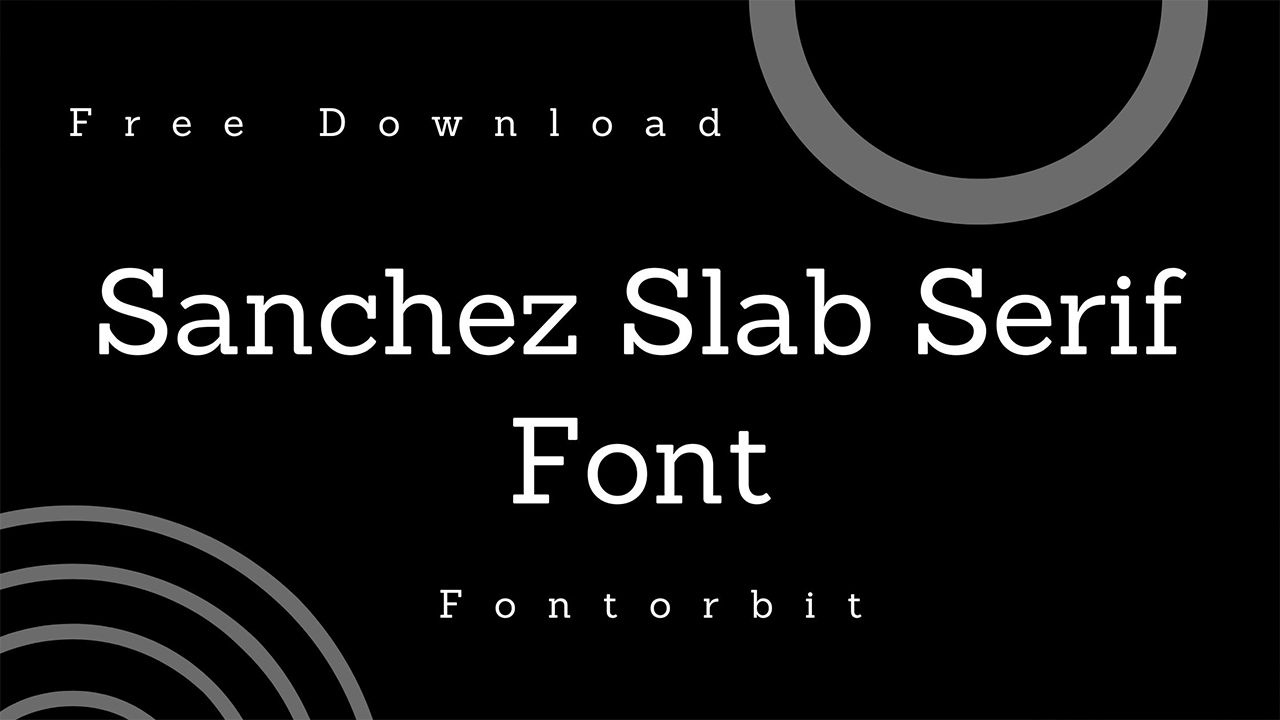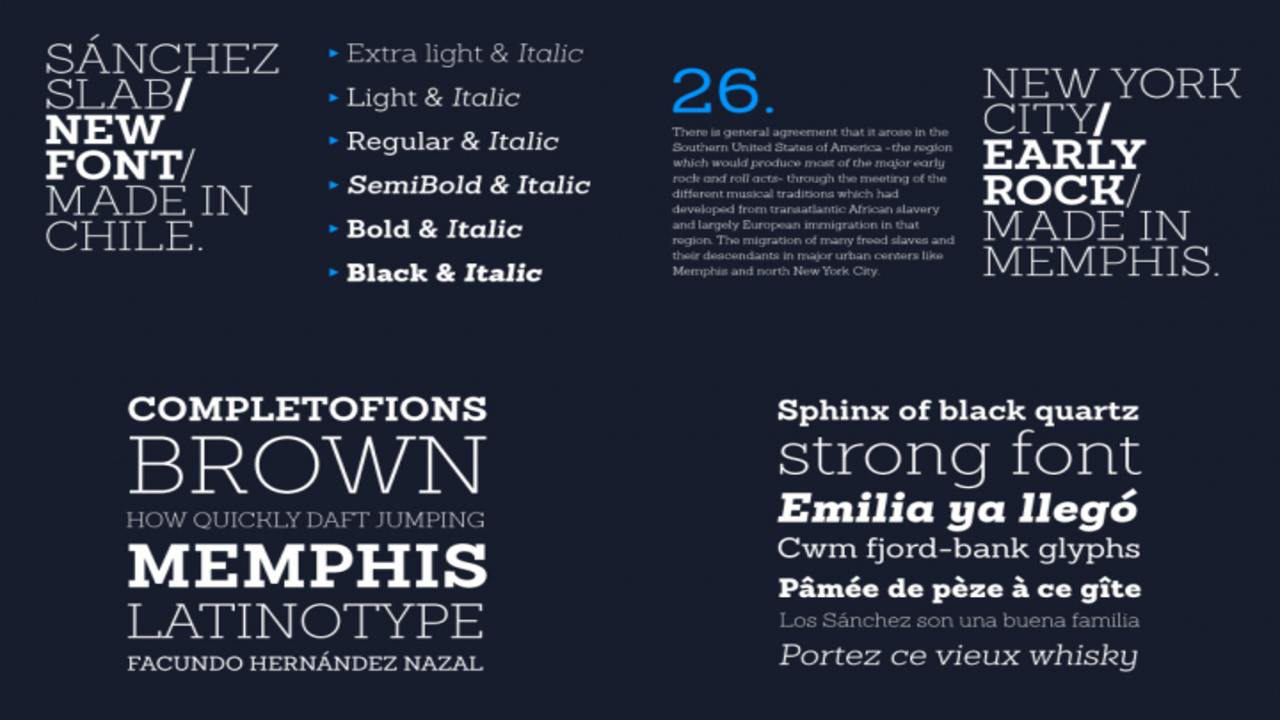
Sanchez Slab is a contemporary slab serif typeface designed by Daniel Hernandez and released by Latino Type in 2013. Known for its clean, straight edges and strong character, Sanchez Slab offers a robust alternative to the classic Sanchez typeface.
Sanchez Slab excels in contexts requiring a bold yet refined presence. Its straight, powerful design makes it a great choice for diverse design needs, including impactful headlines, detailed branding, and classic print materials.
- logos,
- Emblems,
- Posters,
- Banners,
- Brochures,
- E-book covers,
- Fashion magazines,
- Social media posts,
- Wedding invitations,
- Headlines and display texts, etc.
Sanchez Slab is frequently seen in headlines, magazine layouts, and promotional materials. Its strong, geometric forms create a striking visual impact that captures attention, making it suitable for everything from modern advertising and sleek web graphics to elegant invitations and distinctive product packaging.
Sanchez Slab is ideal for designers looking for a typeface combining strength and classic elegance. It features a square structure with straight edges. It is definitely a standout choice for impactful headlines and strong typographic statements. Its range of weights and styles offers flexibility, while its strong, straight-edged characters ensure it makes a memorable impact across various mediums.
1.What Is A Slab Serif Font?
A slab serif font features thick, block-like serifs with minimal or no bracketing, giving it a strong, geometric appearance. It combines the sturdiness of serif fonts with modern, clean lines.
3.What Is The Type Of Sanchez Font?
Sanchez is a slab serif typeface, known for its robust and geometric design with straight, block-like serifs.
4.Where Can You Use Sanchez Font?
Sanchez can be used in headlines, magazines, brochures, logos, invitations, social media posts, and other print or digital materials.
5.What Are The Best Pairings For Sanchez Slab Serif Font?
Sanchez pairs well with sans-serifs like Helvetica or Arial, and contrasting serifs like Play fair Display for a balanced, sophisticated look.
6.What Are The Color Options For Sanchez Slab Serif Font?
Sanchez Slab works well with high-contrast colors like black and white, bold primary colors and neutral tones such as grey or beige.
8.What Is The History Of Sanchez Slab Serif Font?
Designed by Daniel Hernandez and released by Latino Type in 2013, Sanchez Slab is a modern interpretation of the classic Sanchez typeface with more geometric and powerful characteristics.